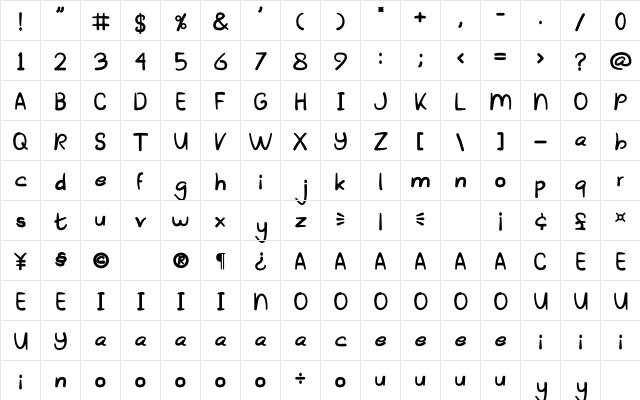
Black Cat Regular
| Foundry | Faris Graphic Art |
| Designer | Faris Graphic Art |
Design Context for Black Cat Typeface
Black Cat is a composed and adaptable typeface that performs quietly and consistently across a wide range of design contexts.